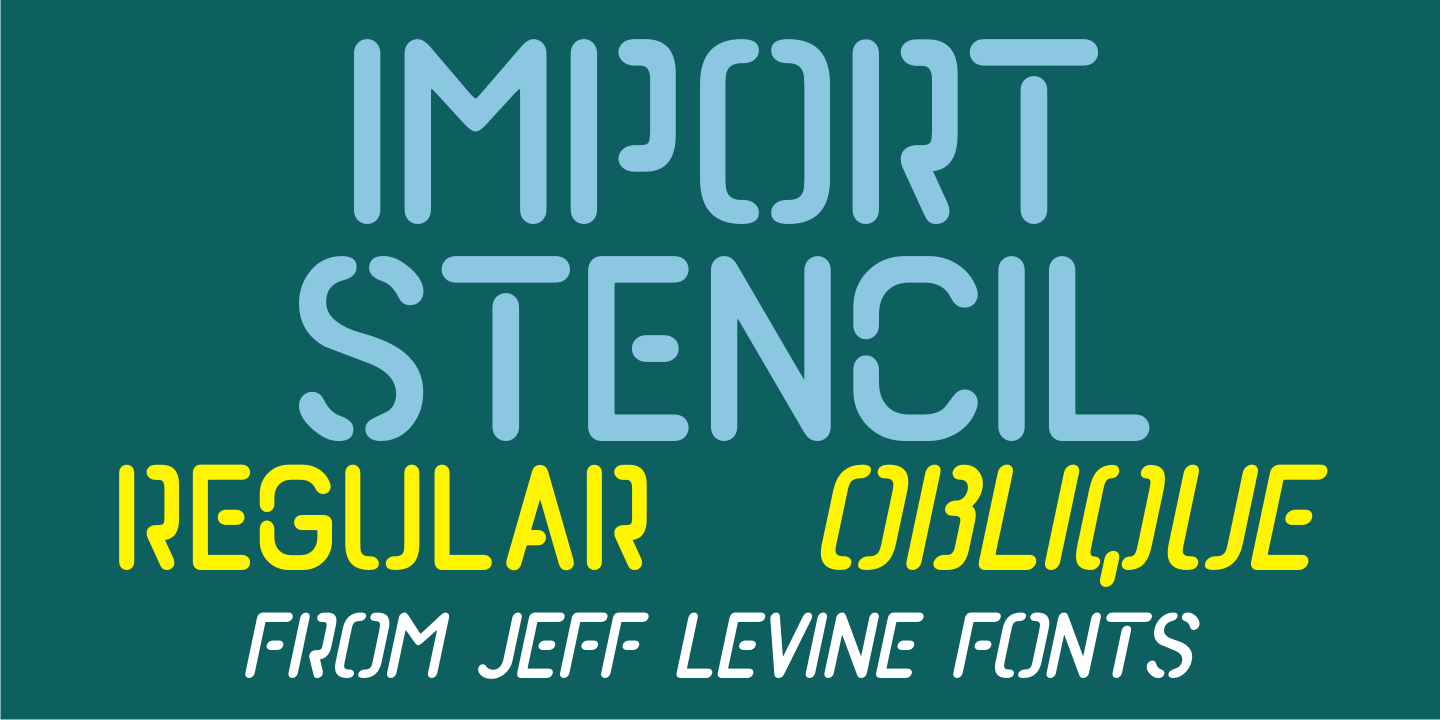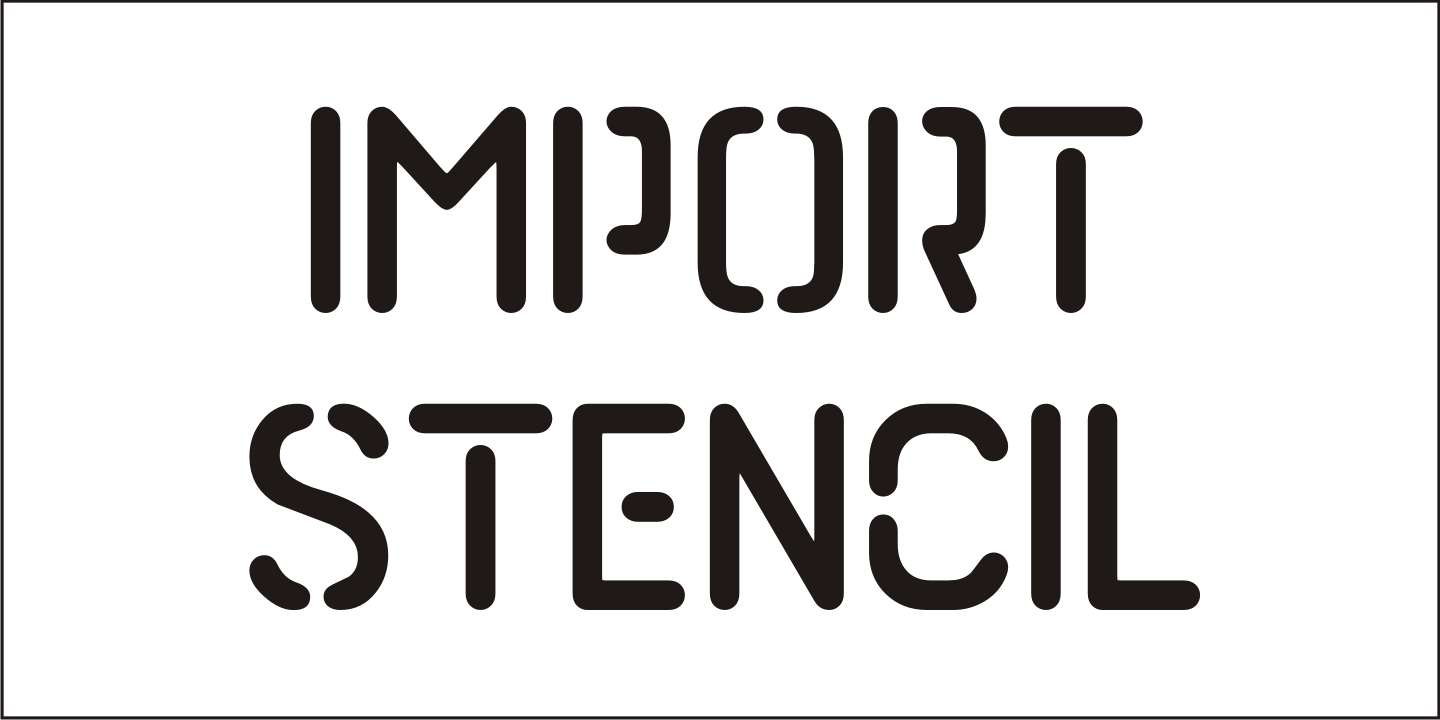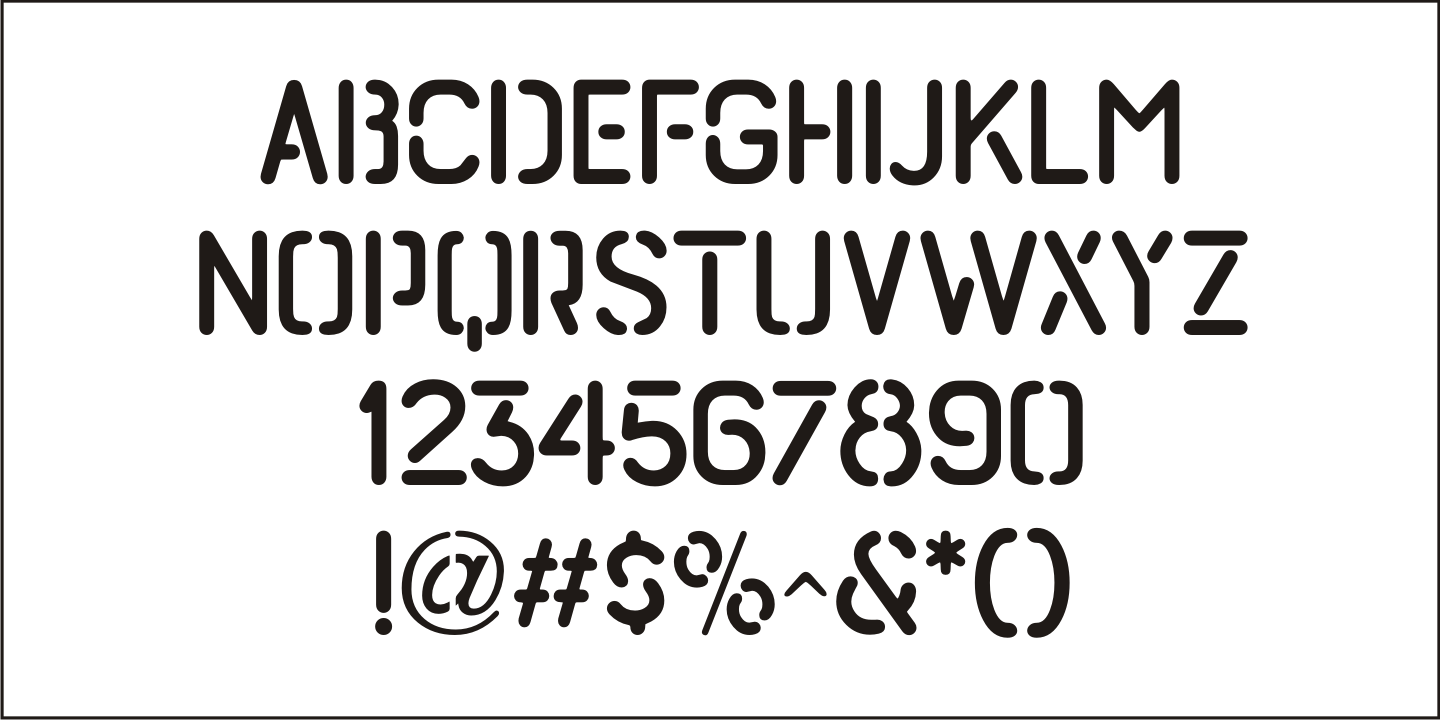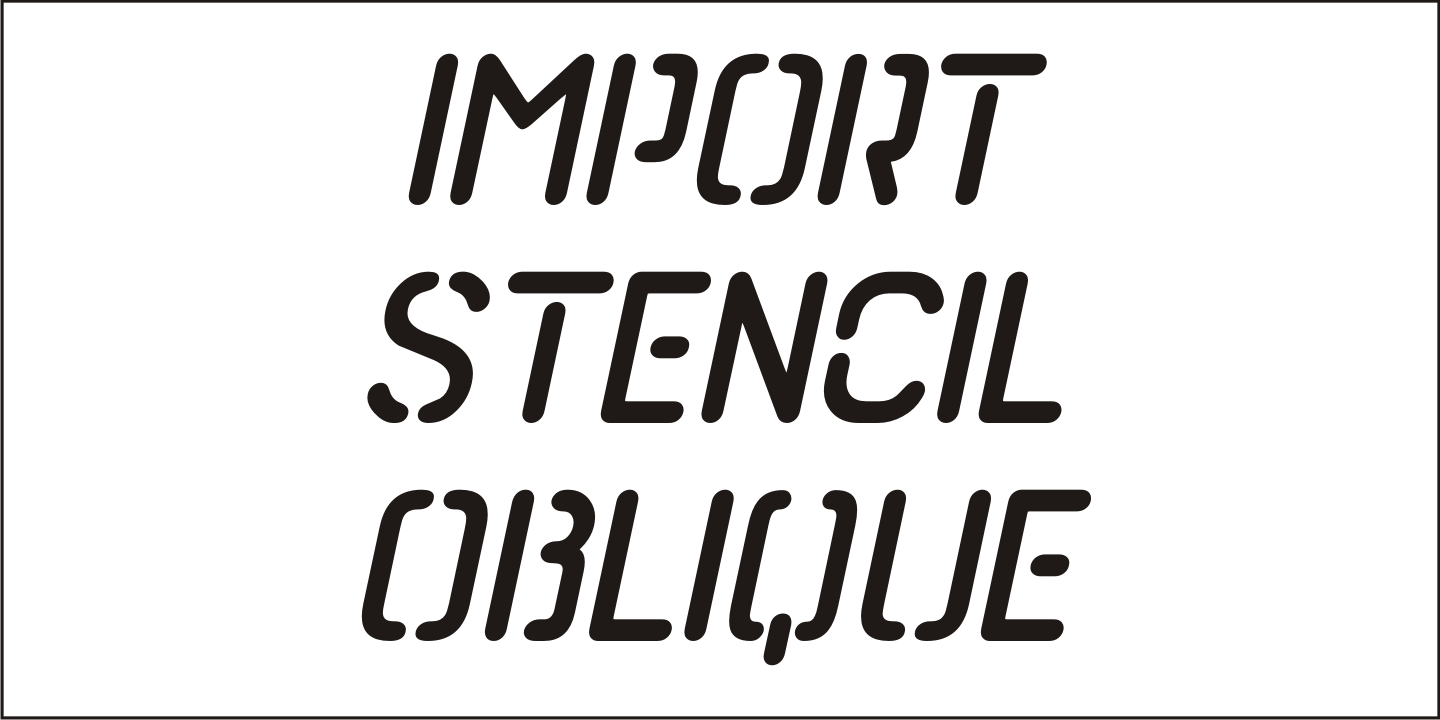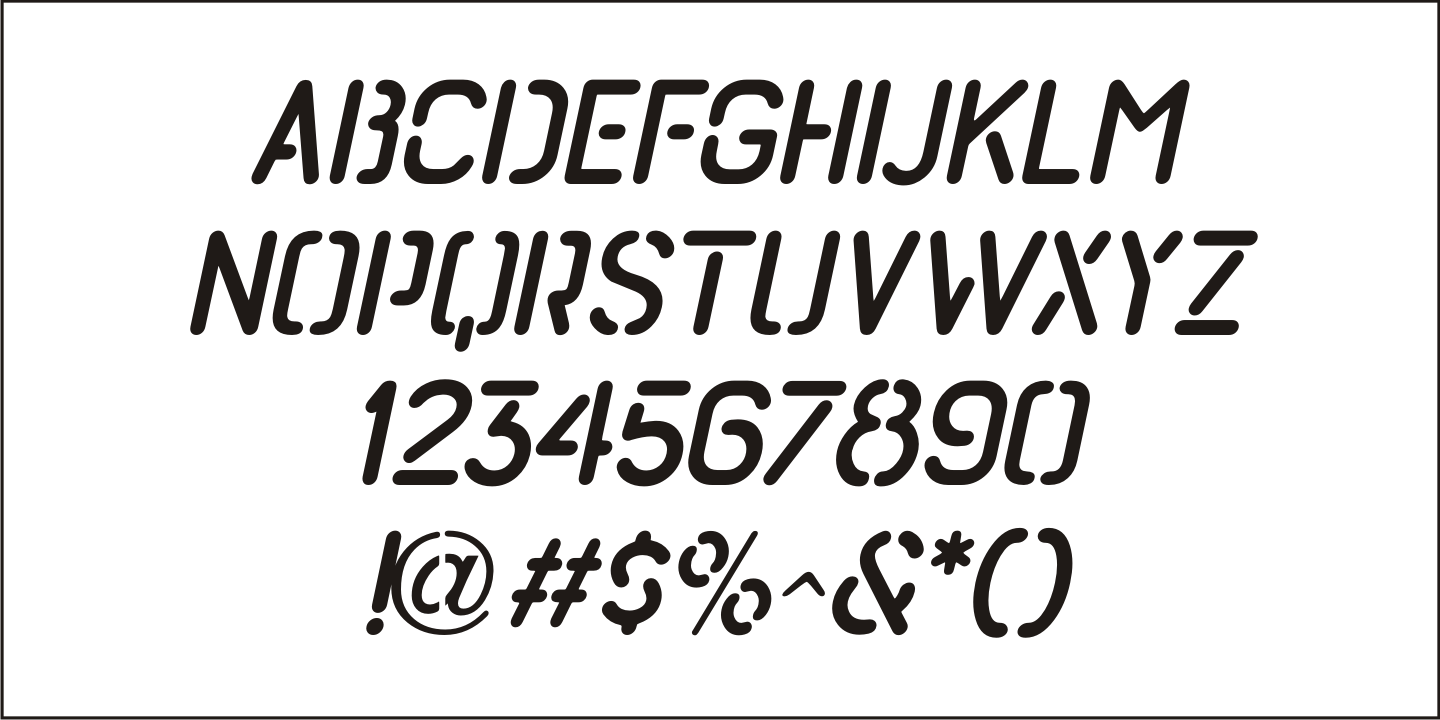
Import Stencil
Dollar Tree Stores imports a number of items from China, and many times these are limited-run products only available until the existing supplies run out. One such item was a sans serif stencil lettering guide with rounded ends that takes on the look of 1980s-influenced techno lettering.
This is now available as Import Stencil JNL, in both regular and oblique versions.